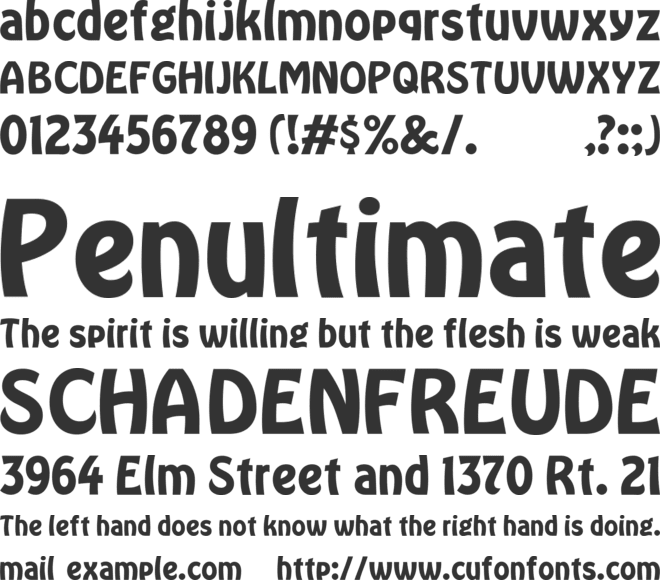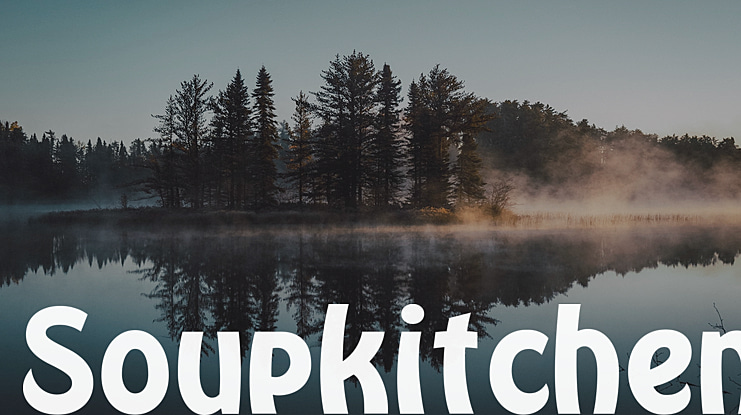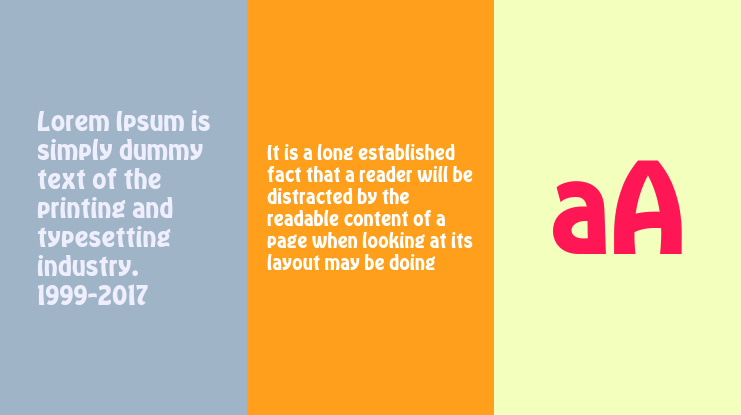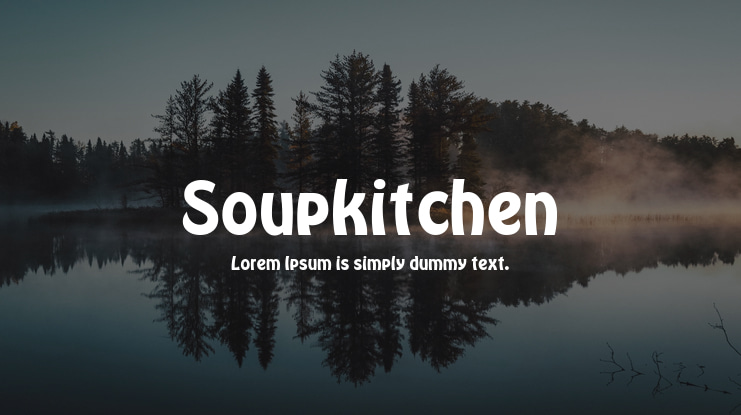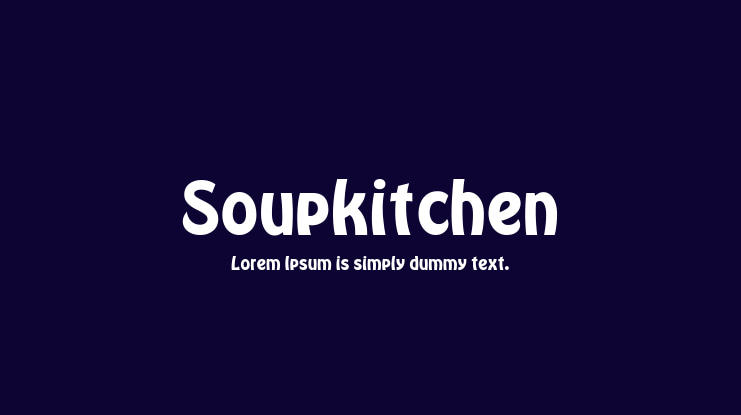
Soupkitchen Font Family
Served fresh and first, here comes Soupkitchen. Congratulations Morris F. Benton, your subpar font Hobo will turn 112 next year, and to celebrate here's a modern interpretation. Your infamous font is almost as bad as Comic Sans, so in return, the shapes have been smoothed out, sharpened, refined, and expanded to five weights. This font's call to action is its lack of descenders, making it a fun font to stack text with. Use it anywhere from a skate shop to a Christmas card, because the updates have made this font hella versatile.